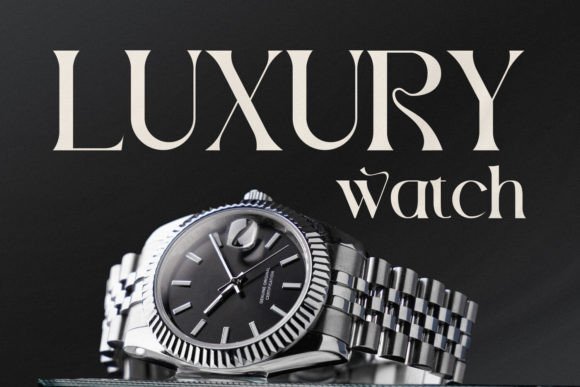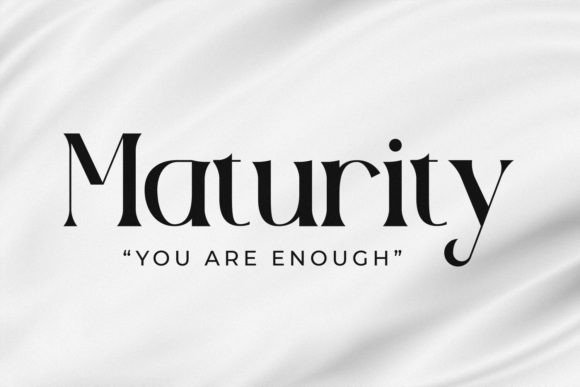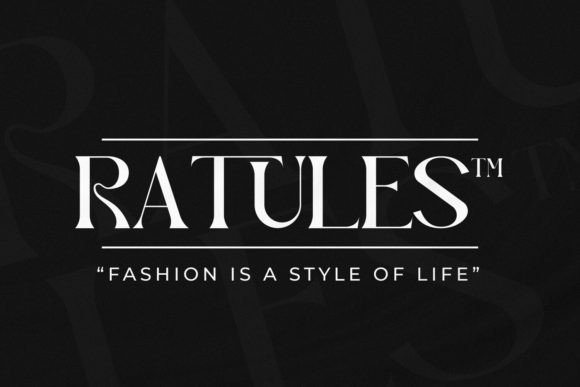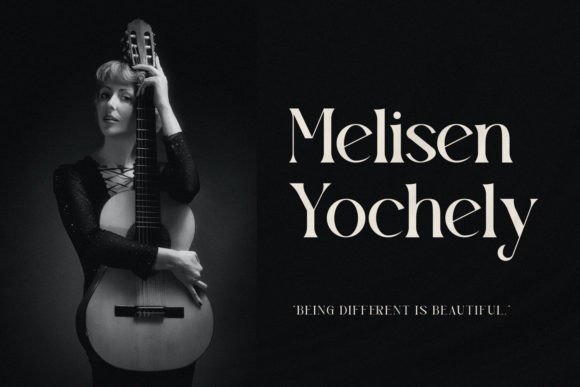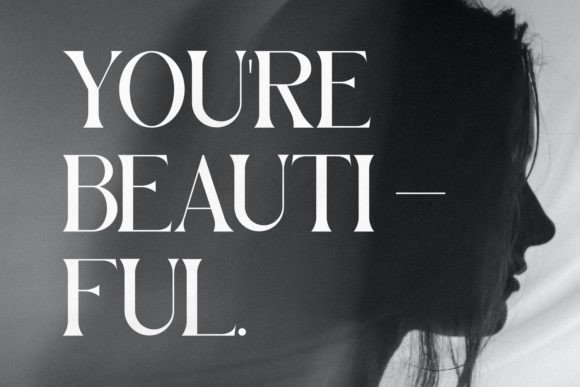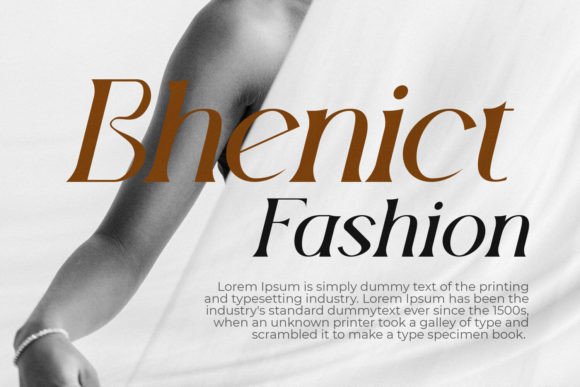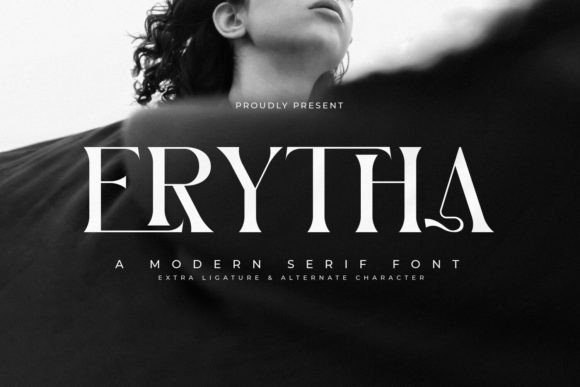
I still remember the frustration of working on a luxury branding project, only to hit a roadblock when searching for the ideal font. My client wanted something sophisticated, modern, and elegant – but not too flashy. I scoured the internet, tried countless fonts, and still, nothing seemed quite right. That was until I stumbled upon Erytha Font. ✨
What is Erytha Font?
Erytha is a modern and stylish serif font that effortlessly marries clean lines with subtle curves, giving it a contemporary look. Its sophisticated presence enhances every composition, making it perfect for editorial designs, luxury branding, and web typography. Whether you’re a designer, crafter, or creative hobbyist, Erytha is sure to elevate your projects.
An Honest Review of Erytha Font
- ✨ Clean and elegant design: Erytha’s sleek lines and subtle curves make it perfect for projects that require a touch of sophistication.
- ✅ Versatility: This font works beautifully for both print and digital applications, from luxury branding to editorial designs.
- 💡 OpenType features: Erytha supports a range of OpenType features, including stylistic alternates and glyphs, giving you plenty of creative options.
While Erytha is an excellent font, there are a few minor quirks to be aware of: ⚠️
- ⚠️ Not ideal for body text: Due to its elegant design, Erytha works best as a display font or for short paragraphs. It may not be the best choice for lengthy body text.
The Story Behind Erytha Font
Erytha was designed by a team of typographers who wanted to create a modern serif font that would meet the needs of contemporary designers. Inspired by classic typography and modern design trends, Erytha was crafted to be both elegant and versatile. The font’s name, Erytha, is derived from the Greek word for “red earth,” reflecting the font’s warm and earthy tone.
| Font Name | Erytha Font |
| Author | jeritype |
Q: What is Erytha Font?
A: Erytha is a modern and stylish serif font designed for editorial designs, luxury branding, and web typography.
Q: Is Erytha suitable for body text?
A: While Erytha is an excellent font, it’s best used as a display font or for short paragraphs. It may not be the best choice for lengthy body text.
Q: Does Erytha support OpenType features?
A: Yes, Erytha supports a range of OpenType features, including stylistic alternates and glyphs, giving you plenty of creative options.